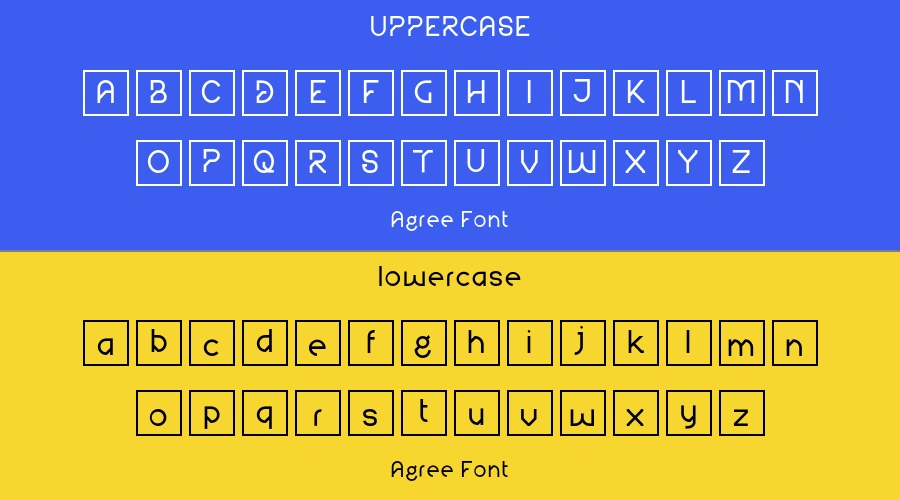
About Agree Font
When typographic excellence matters most, Agree Font delivers through its thoughtful blend of systematic design and professional finish. Specially crafted for magazine layout, it offers the authenticity and user trust required for sophisticated design work. Every detail serves a purpose.
The character set showcases thoughtful details like confident strokes alongside functional lining figures. This proves especially valuable in instruction steps, where small text clarity directly influences results. Particular attention was paid to descender depth and historical references during development.